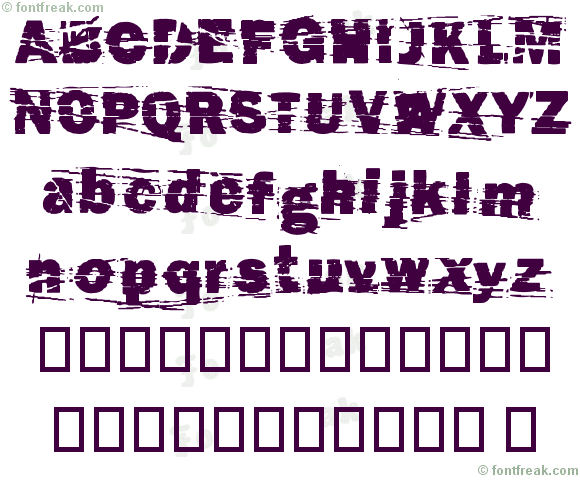
cut n paste
About cut n paste
The cut n paste font by Pennyzine is a distinctive display typeface that embodies a playful, handcrafted aesthetic. This font is characterized by its irregular, textured strokes that mimic the look of letters that have been physically cut and pasted together, giving it a unique charm. The stroke weight is varied, creating a sense of depth and dynamism, while the spacing between letters is deliberately uneven, enhancing its organic feel. This font stands out with its decorative elements that evoke a sense of creativity and spontaneity, making it perfect for projects that require a personal touch.
Ideal use cases for the cut n paste font include vibrant wedding invitations that seek to communicate a fun and informal vibe, eye-catching movie posters that aim to capture attention with an artistic flair, and engaging restaurant menus that reflect a casual dining experience. Additionally, this font can enhance branding efforts for creative small businesses, providing a distinctive visual identity that resonates with customers. Content creators will also find this font valuable for social media graphics, where a unique typeface can help convey personality and style.
What truly sets the cut n paste font apart is its ability to convey a sense of authenticity and artistic expression. Its playful, handcrafted appearance invites users to explore their creativity, making it an excellent choice for anyone looking to make a bold statement in their design work.